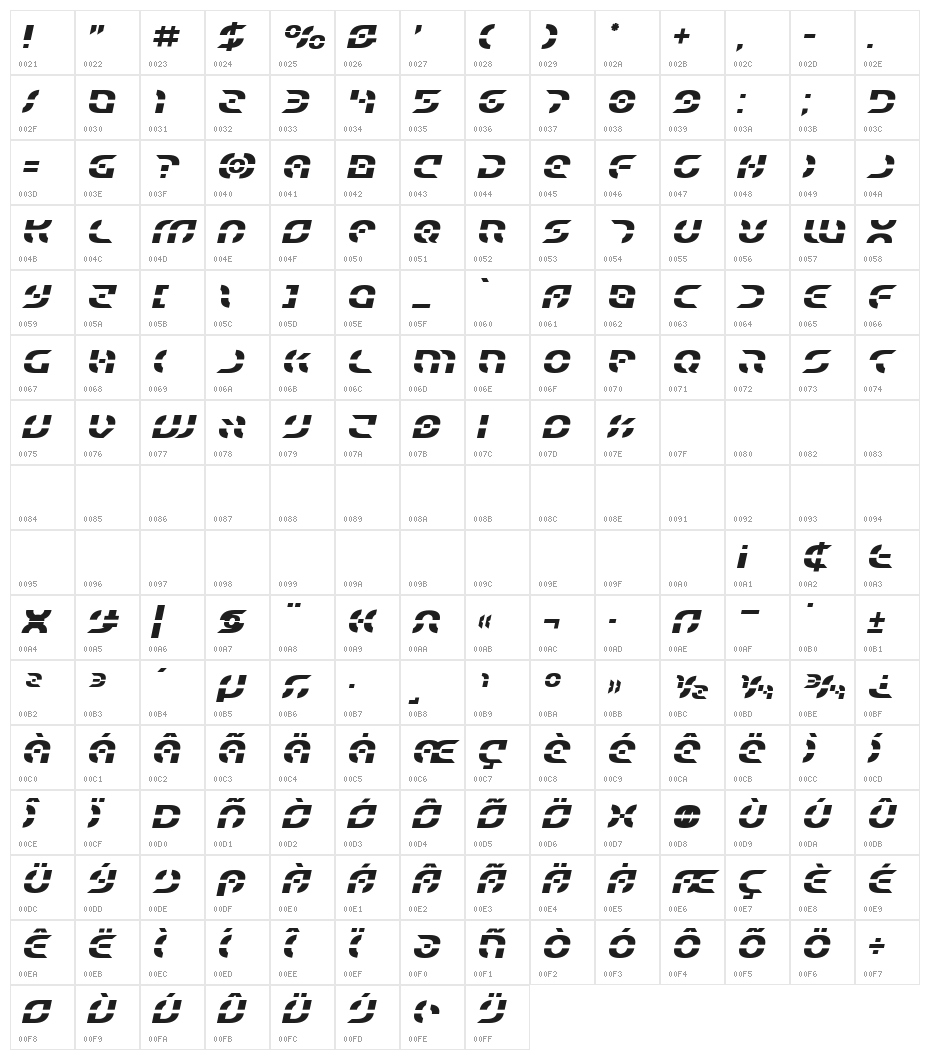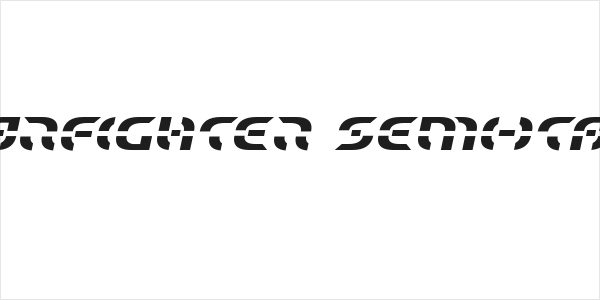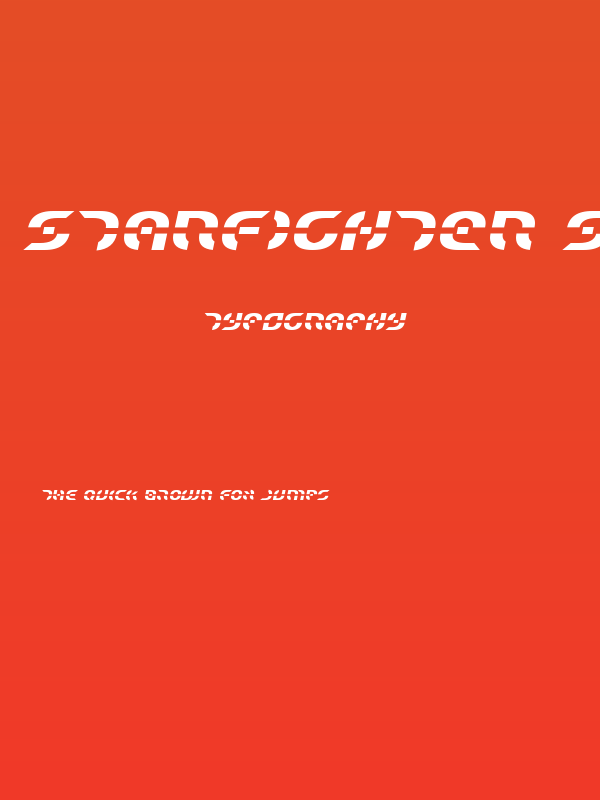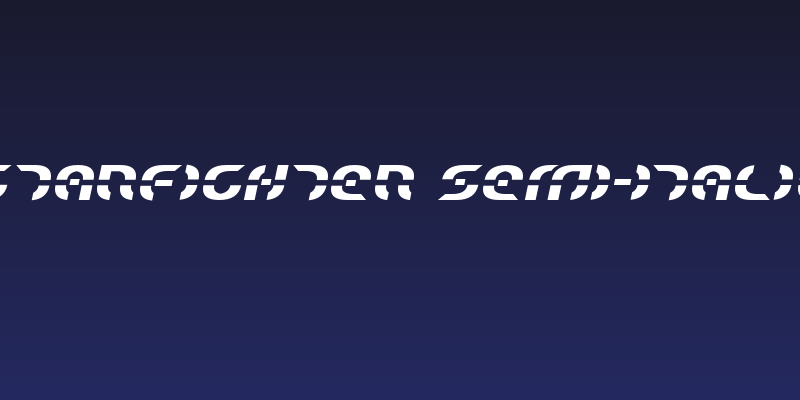
Starfighter Semi-Italic Font
Starfighter Semi-Italic Description
This font features a futuristic and dynamic design, characterized by its semi-italic slant and bold, geometric shapes. The letters are constructed with a series of sharp angles and cutouts, giving it a unique, high-tech appearance. The uppercase and lowercase letters maintain a consistent style, with the lowercase letters mirroring the uppercase in form but slightly reduced in size. Numbers and special characters follow the same design principles, ensuring uniformity across all glyphs. The font's distinct style makes it stand out, ideal for projects that require a modern and edgy look.